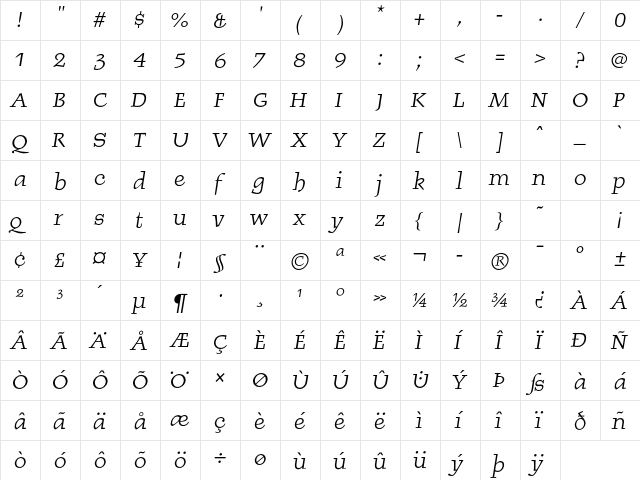
BurgstaedtAntiqua LT Std Rg Italic
| Foundry | Linotype GmbH |
| Designer | Richard Yeend |
Design Context for BurgstaedtAntiqua LT Std Rg Typeface
BurgstaedtAntiqua LT Std Rg offers clean, dependable letterforms without strong stylistic allegiance, making it a practical choice for designers who need flexibility. Its italic angle brings a sense of urgency and motion to the letterforms. The delicate stroke weight brings airiness and refinement to layouts.
Pro Tip: Use BurgstaedtAntiqua LT Std Rg for emphasis, pull quotes, and subheadings where its slanted energy can add rhythm to the layout.